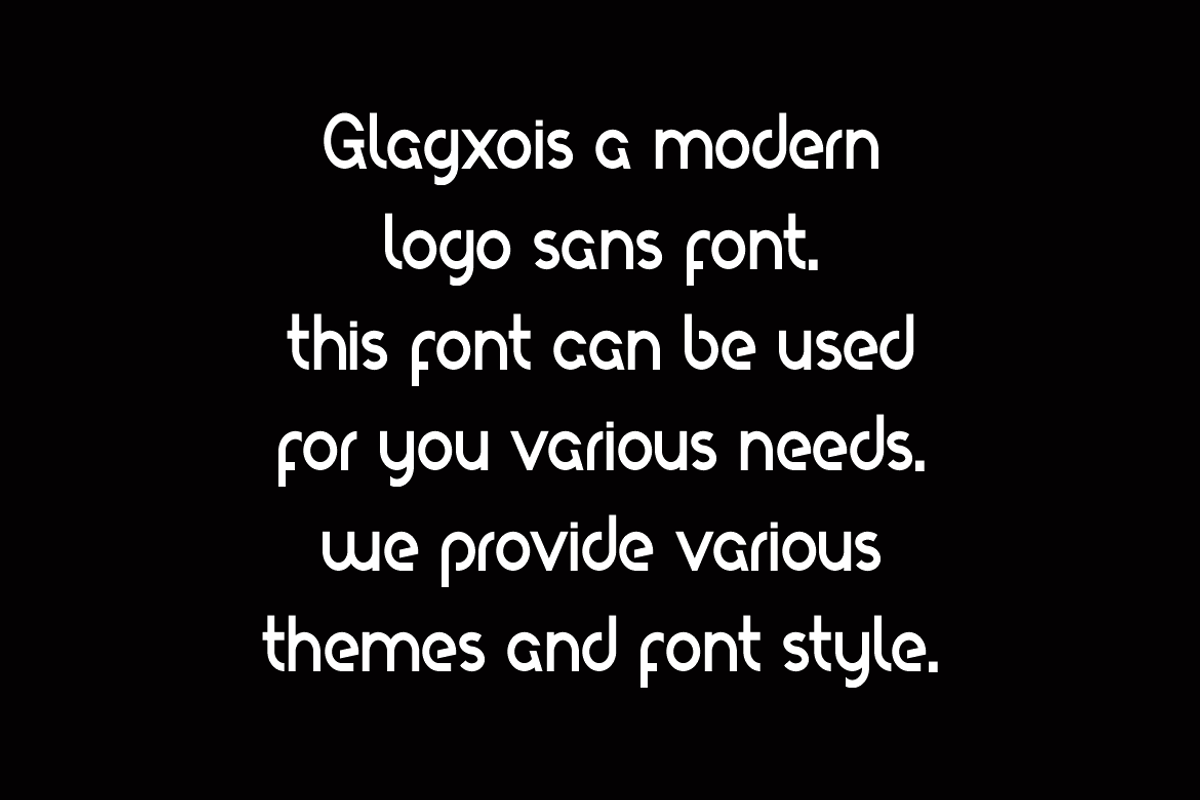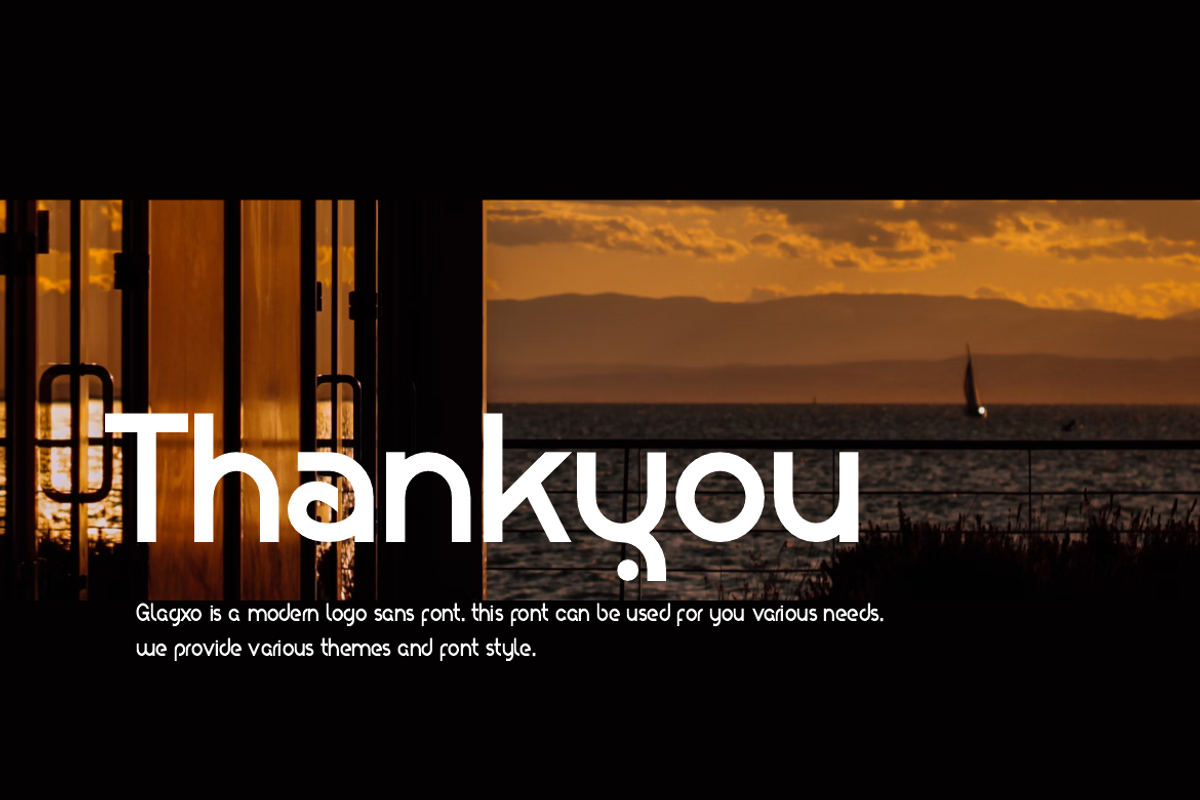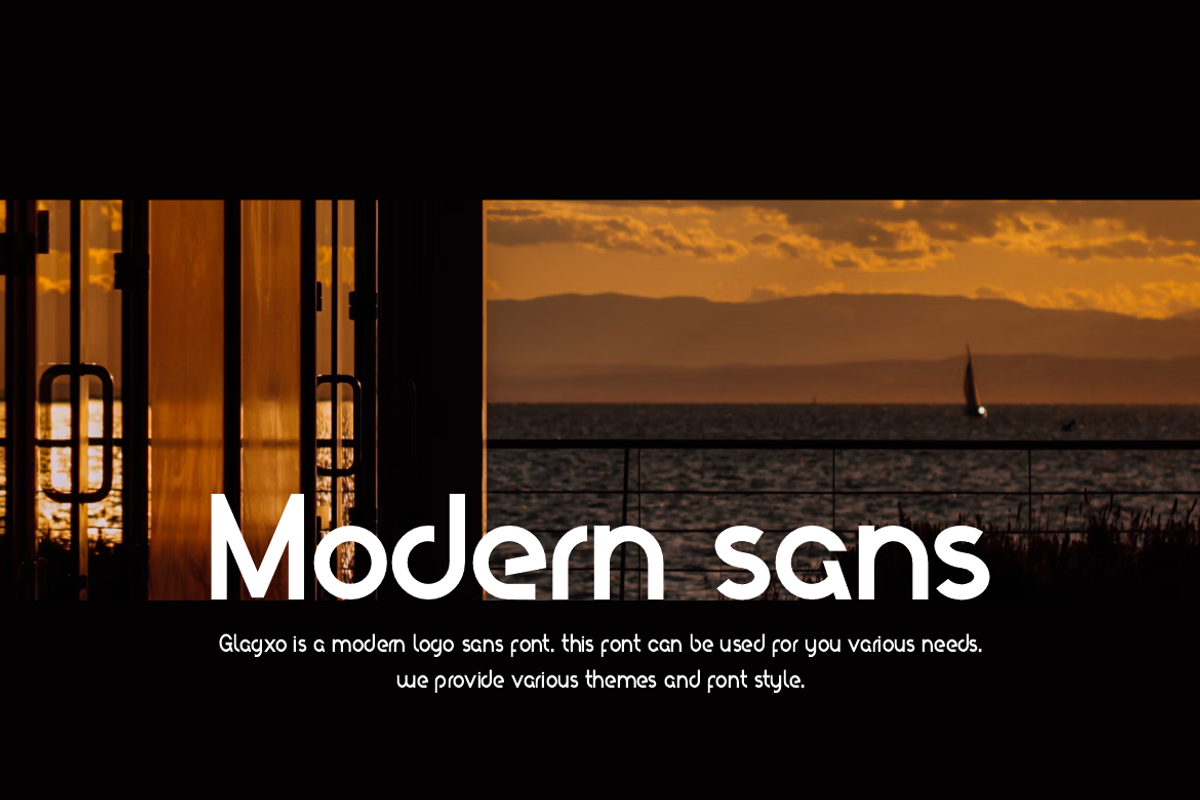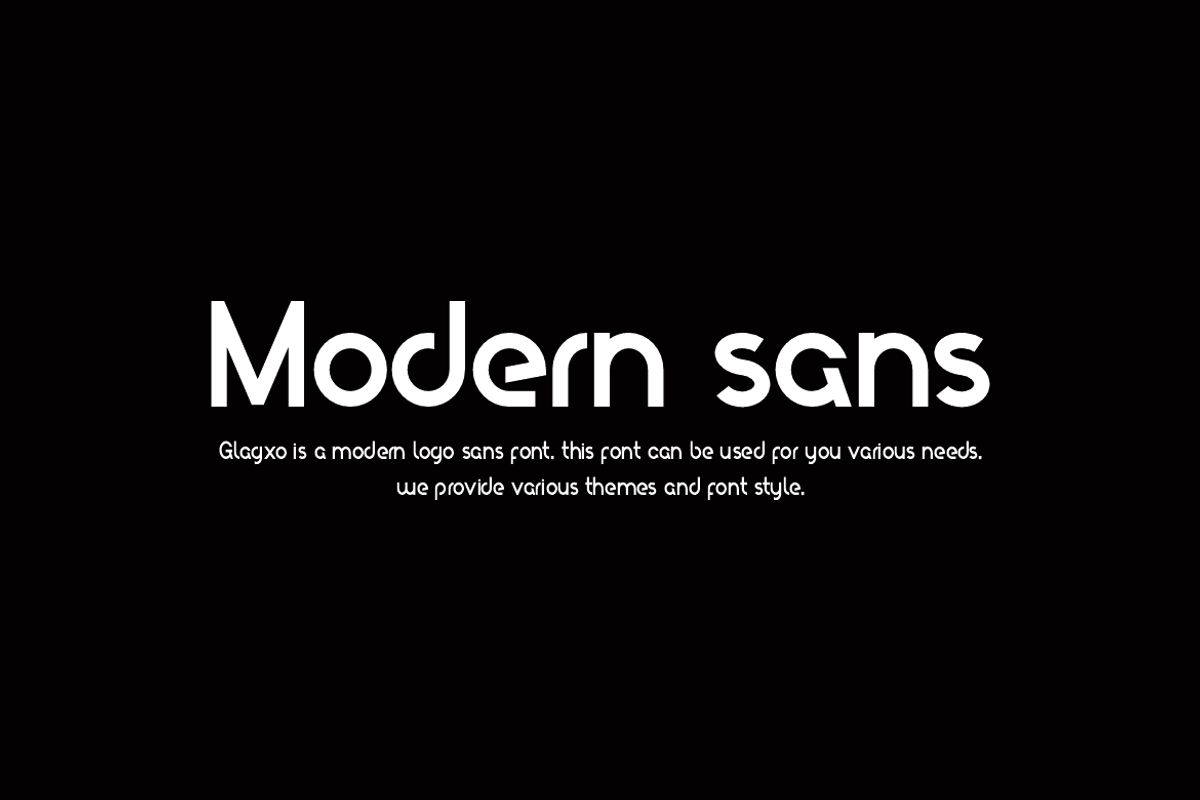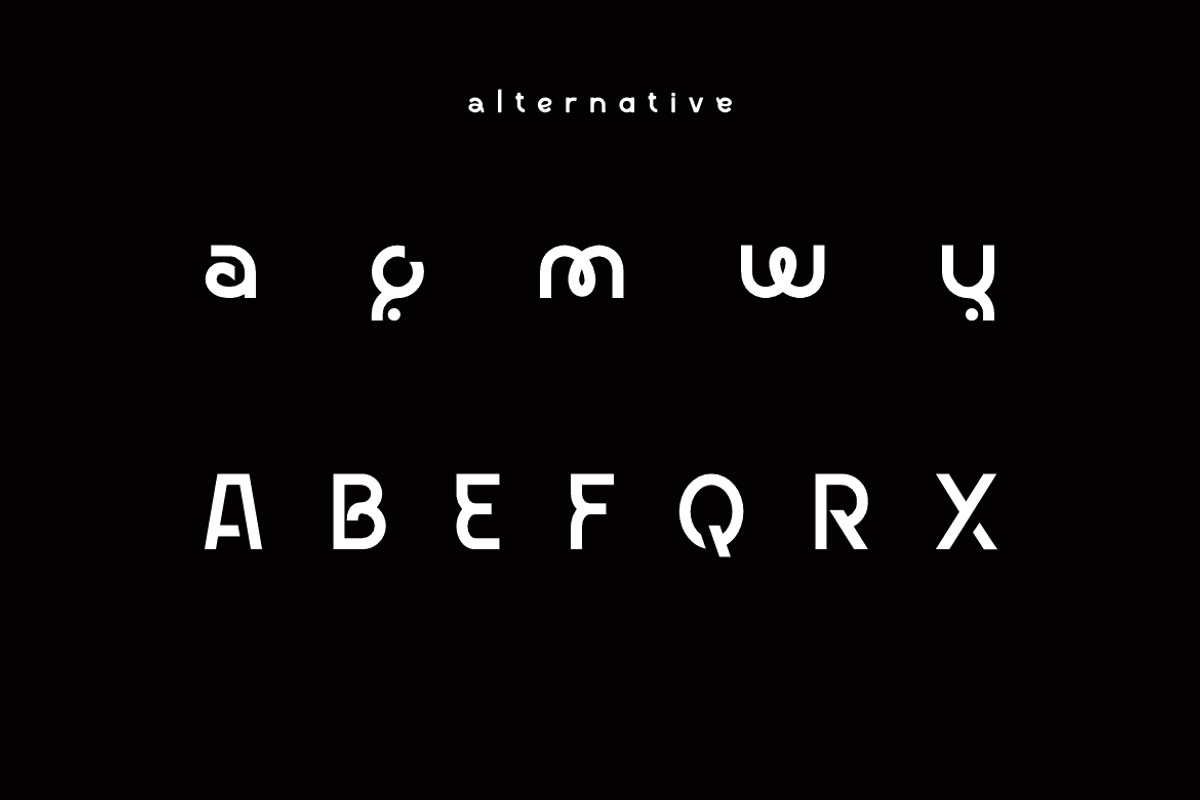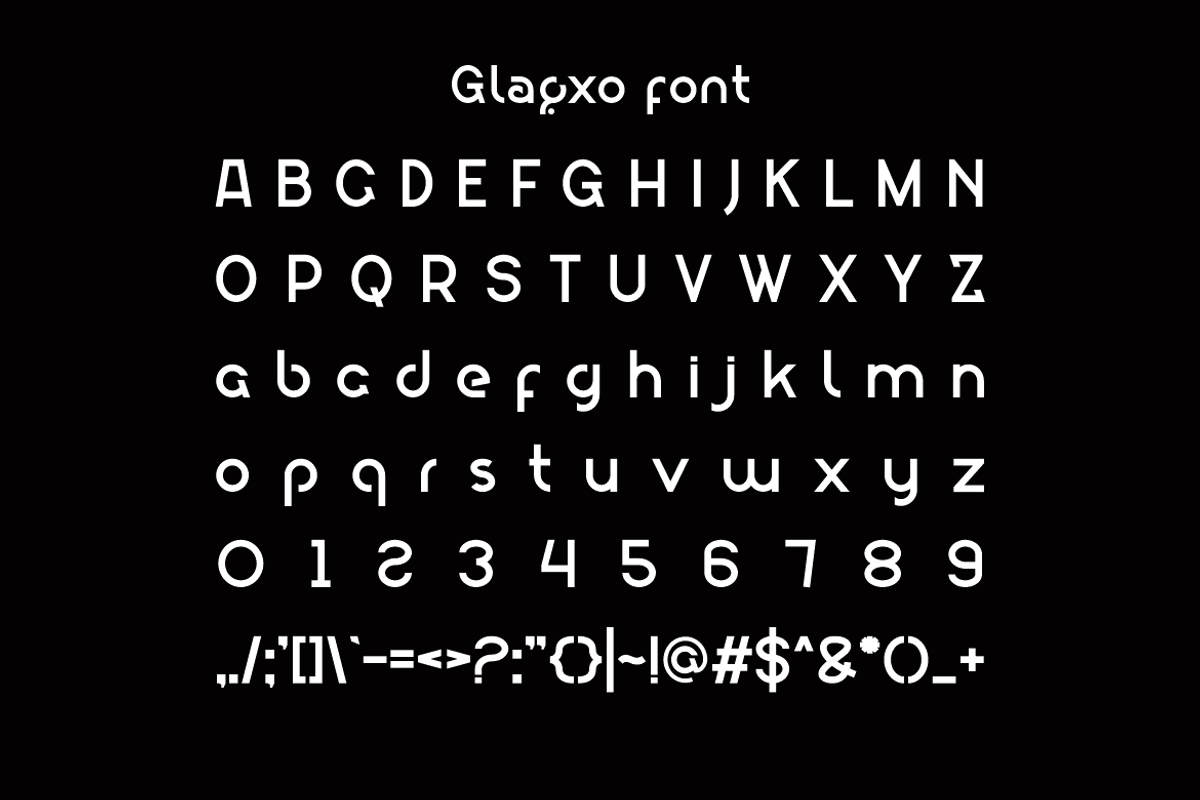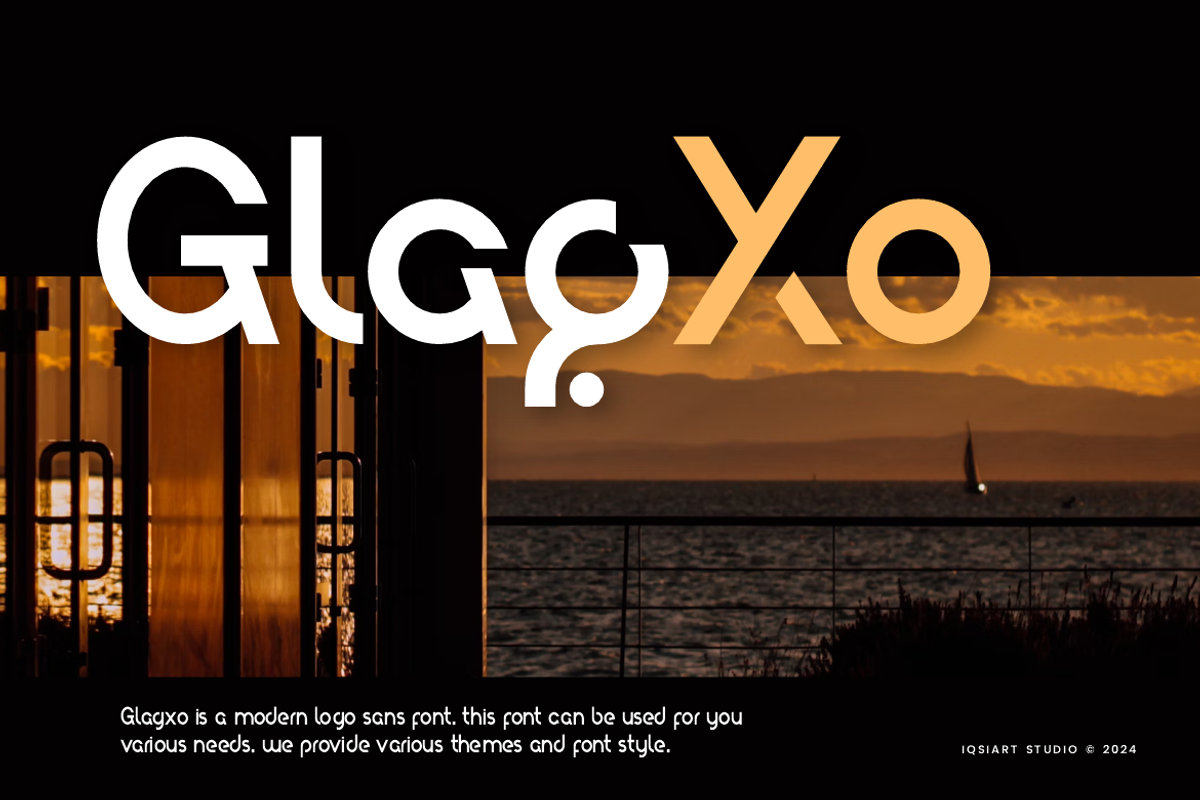
Glagxo - Modern Sans Logo Font
Glagxo Font is a best and authentic display font. This font can be used for your various needs. We provide various themes and font styles. visit our profile to get a wide variety of themes and different font styles you need.